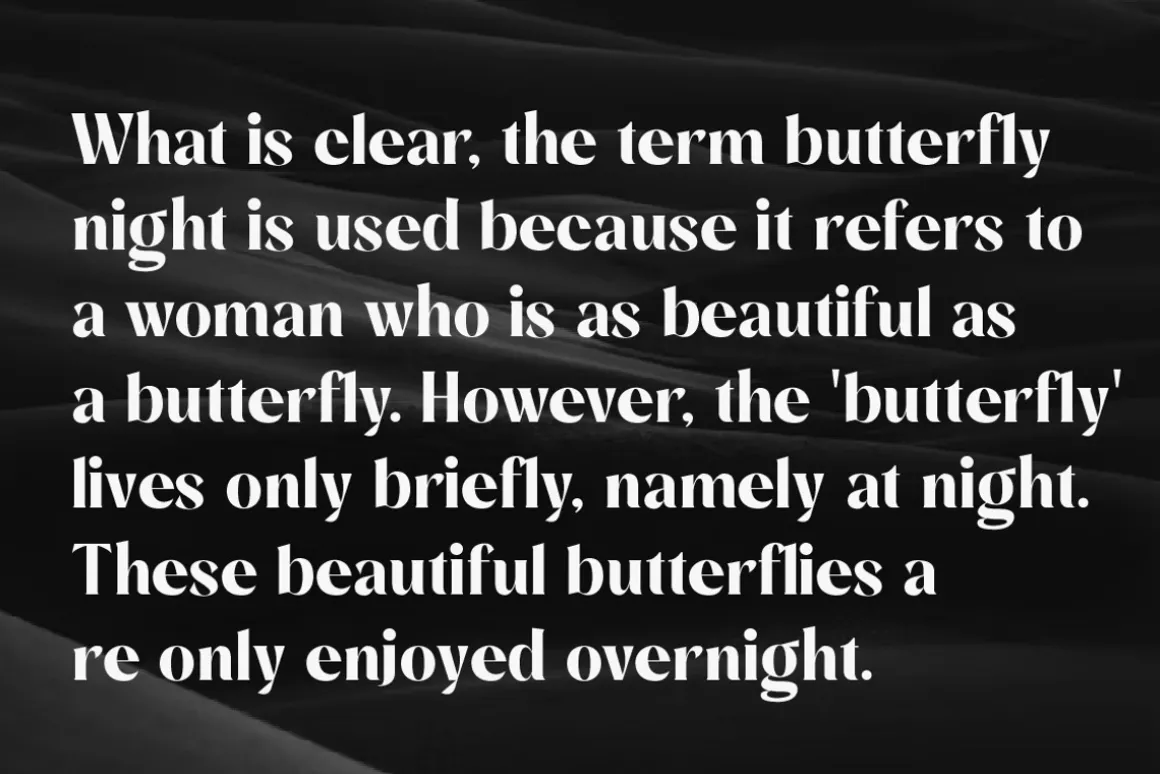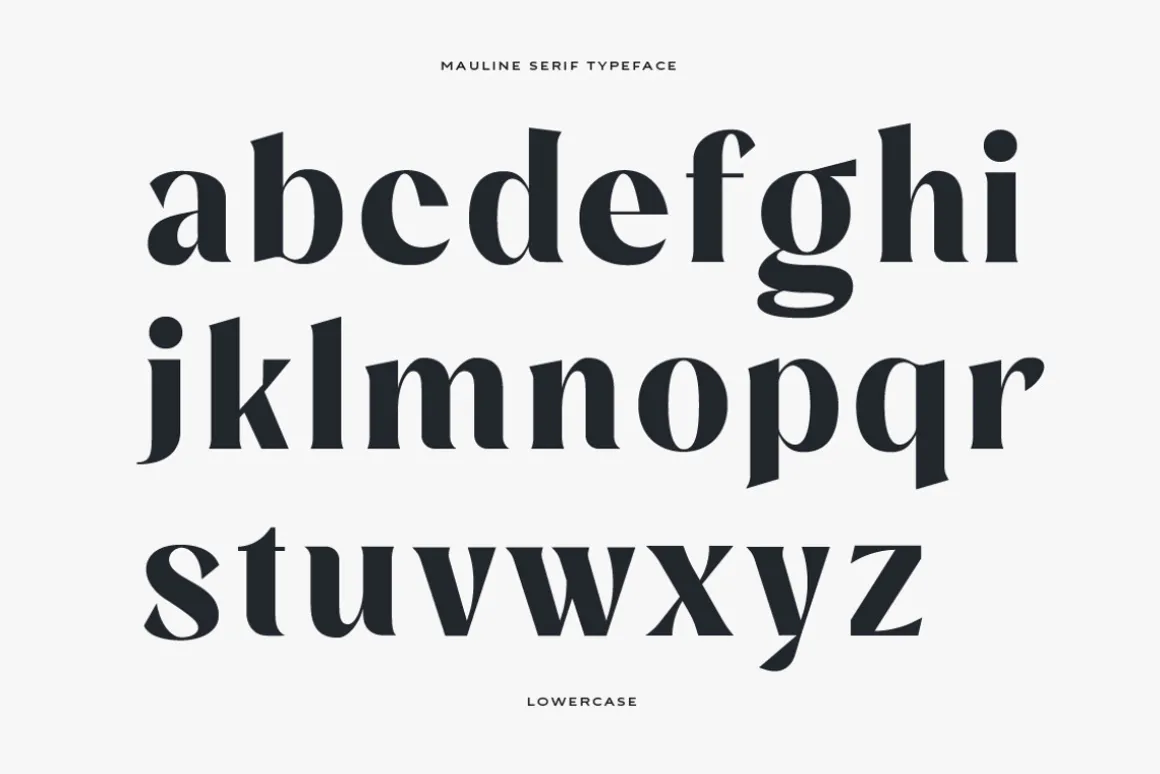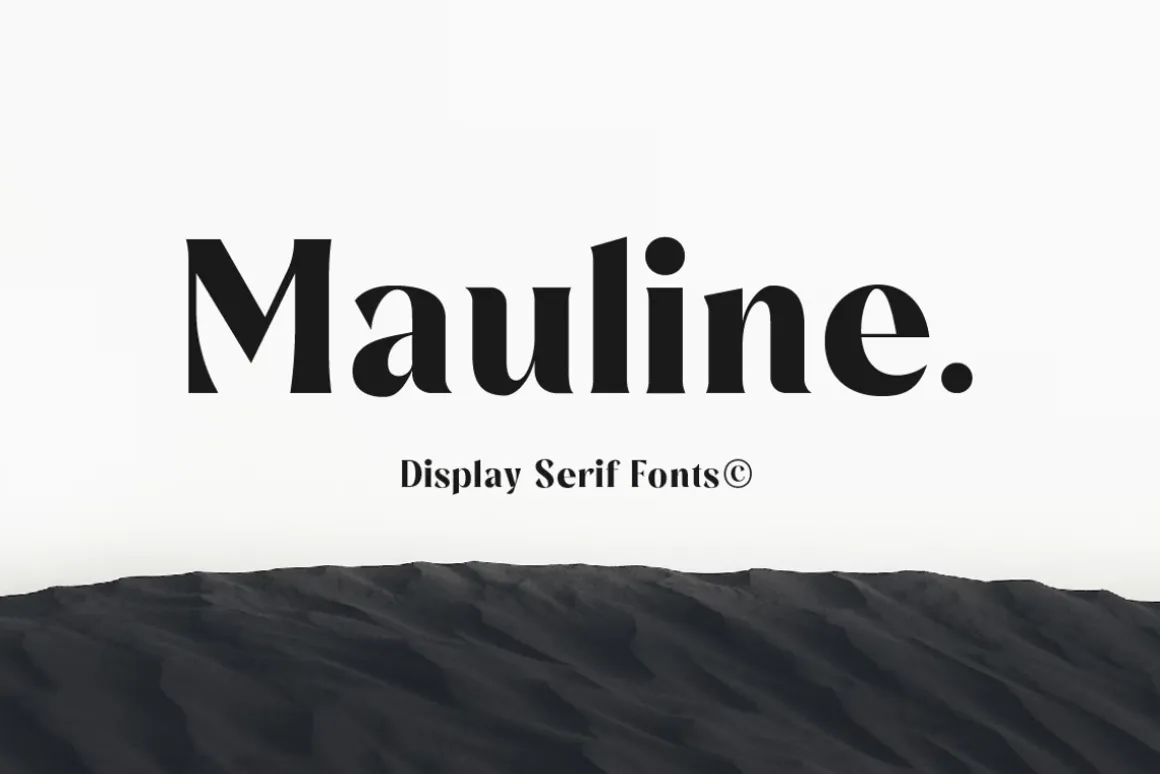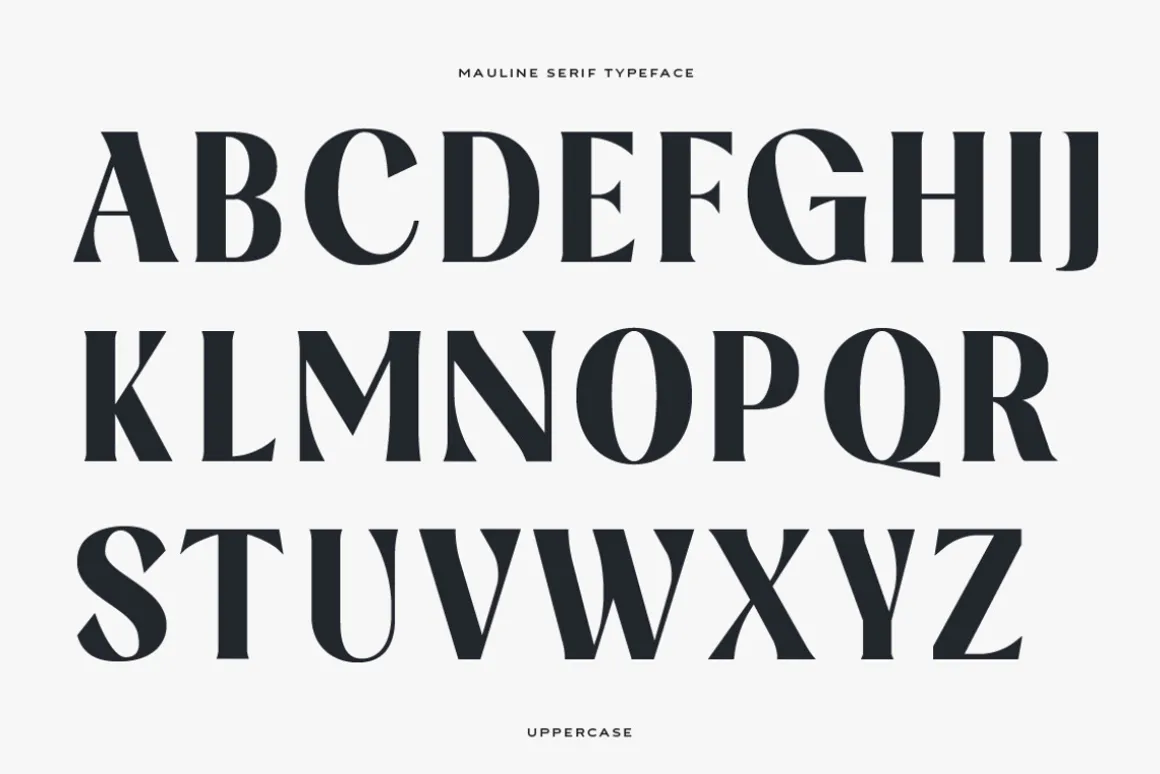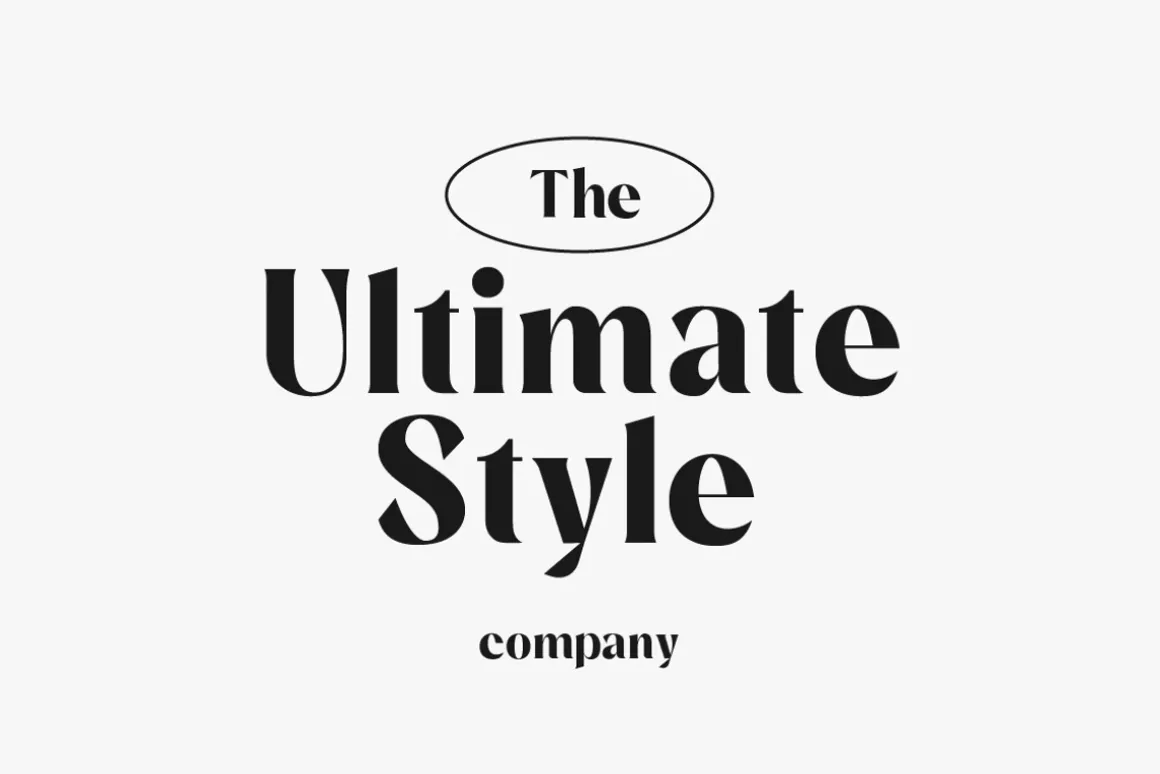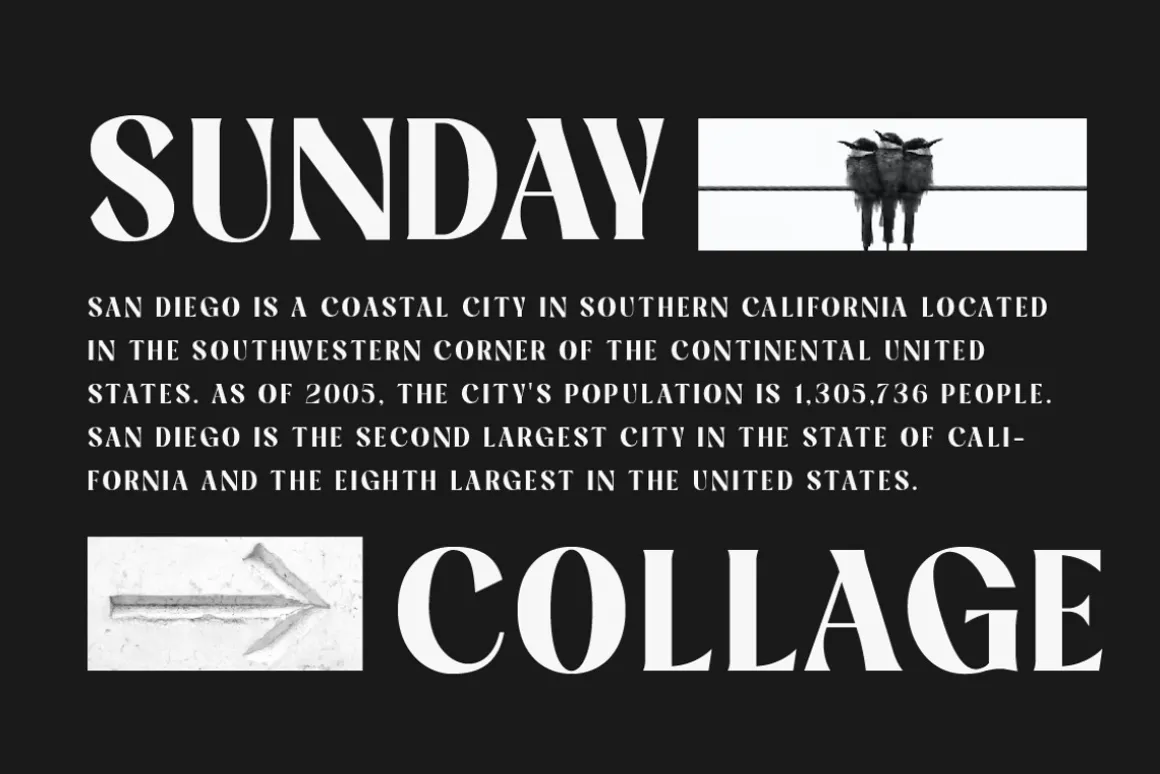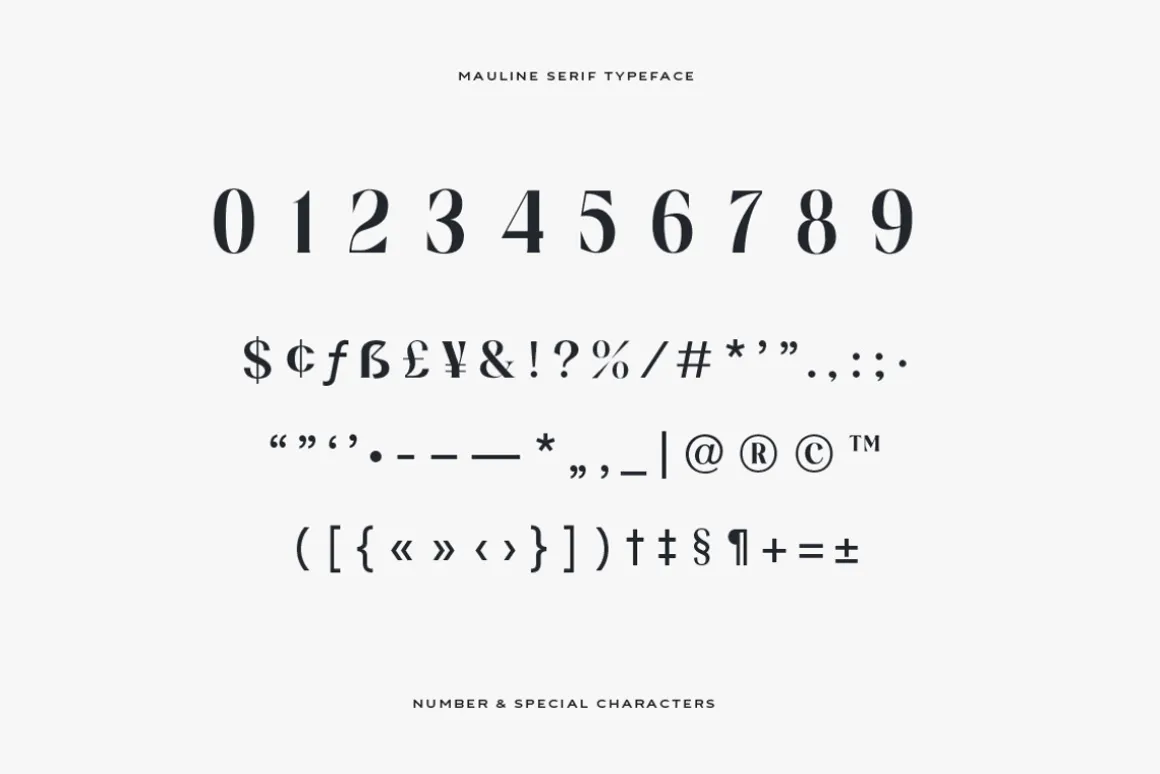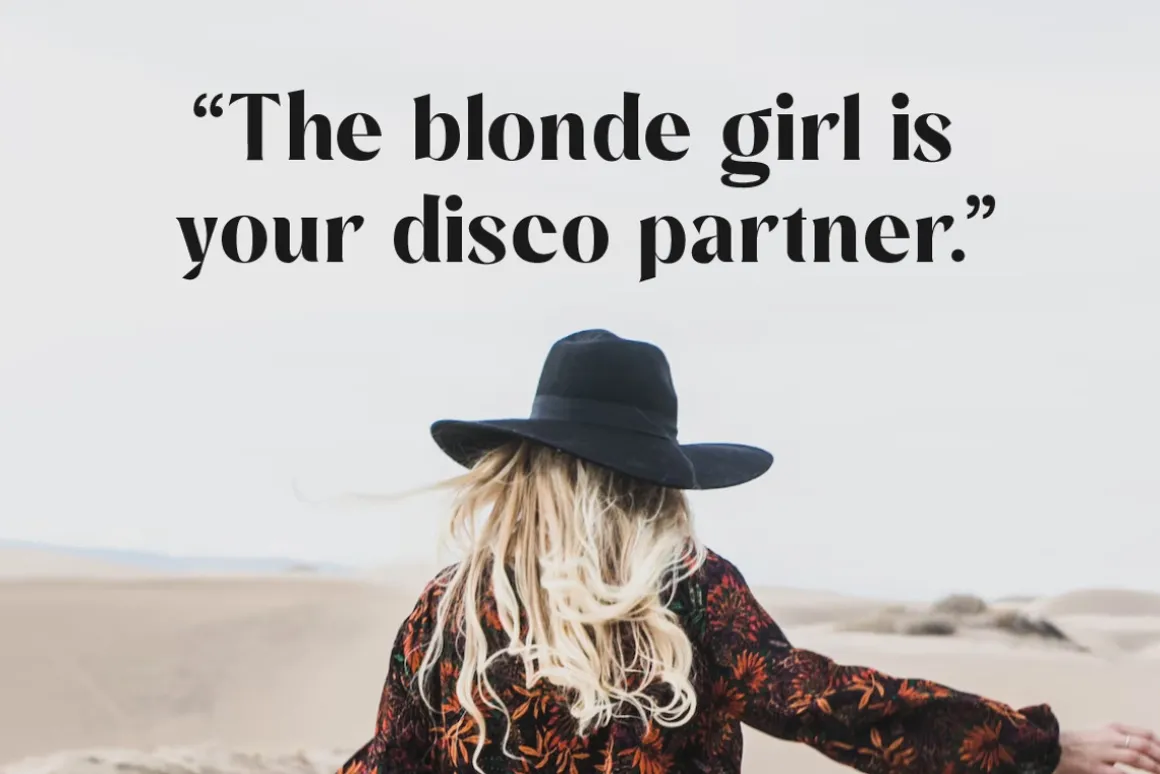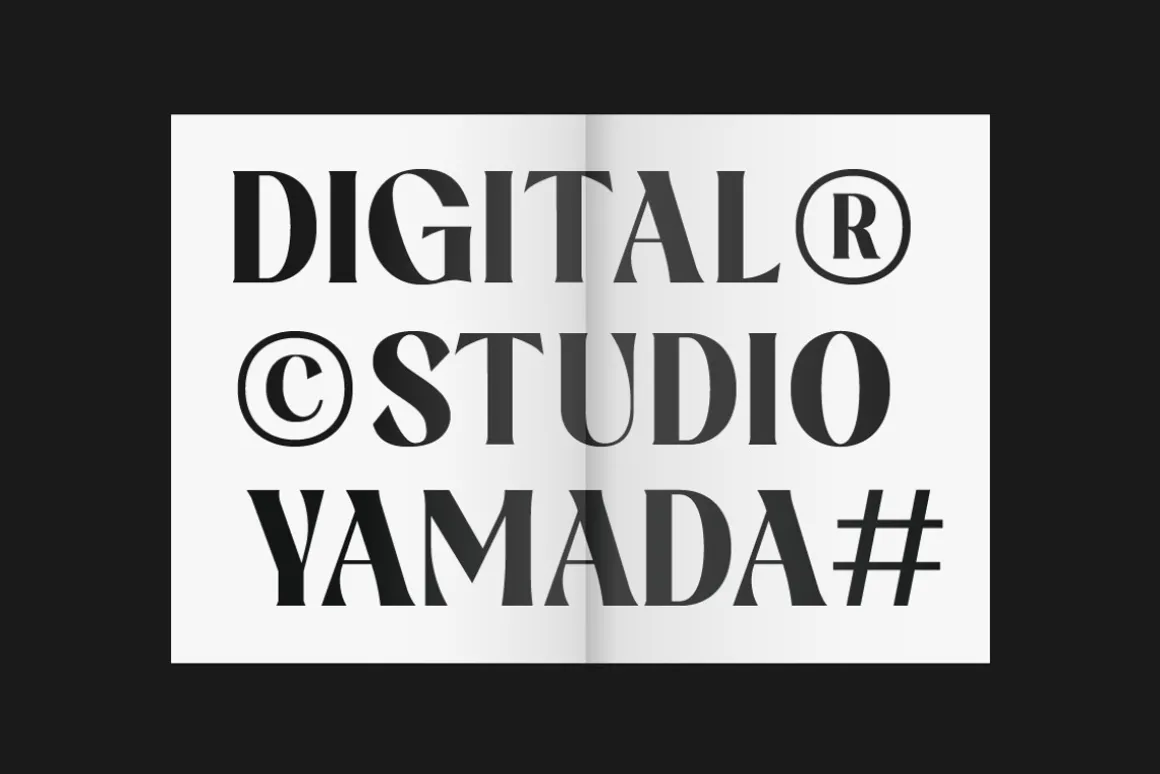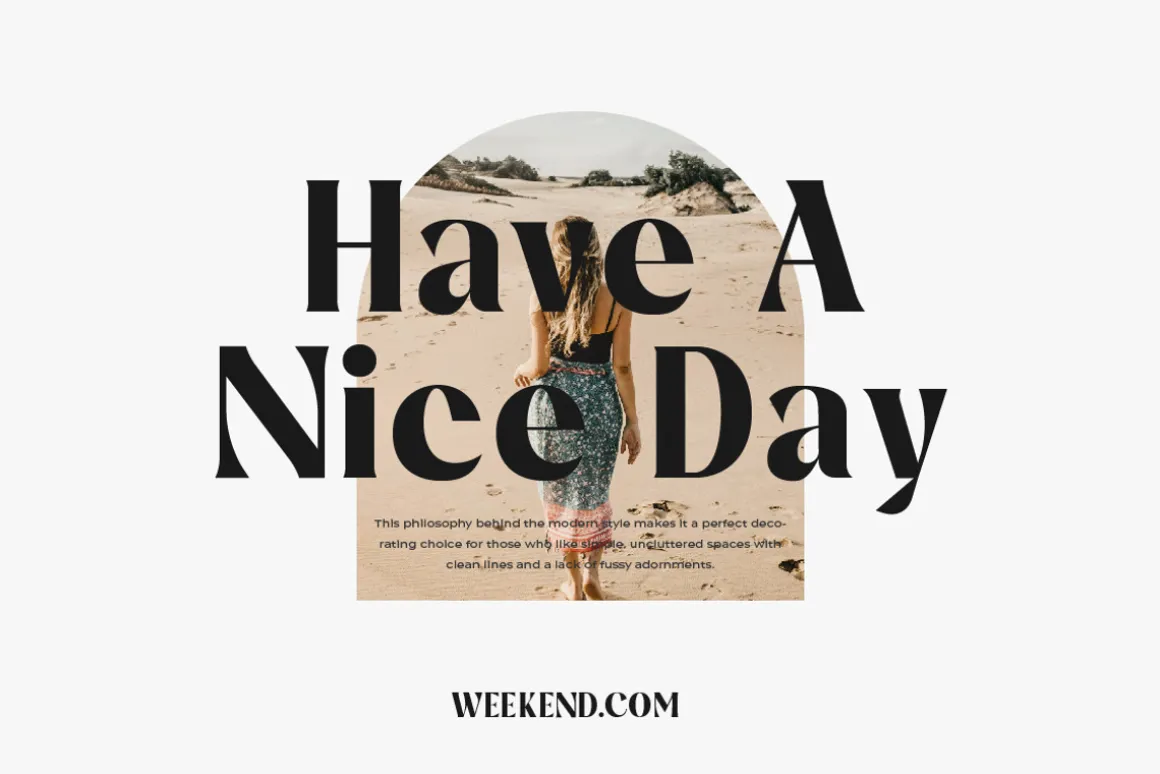
a modern, stylish serif font that offers excellent legibility for a variety of applications. This font is ideal for use in any kind of graphic design or advertising work, from logo designs to web design and print projects. Its easy-to-read character shapes, distinct letterforms, and beautiful typographic details make this typeface perfect for creating impactful and captivating visual designs.